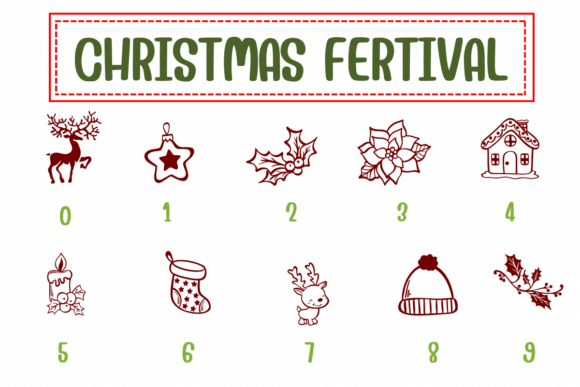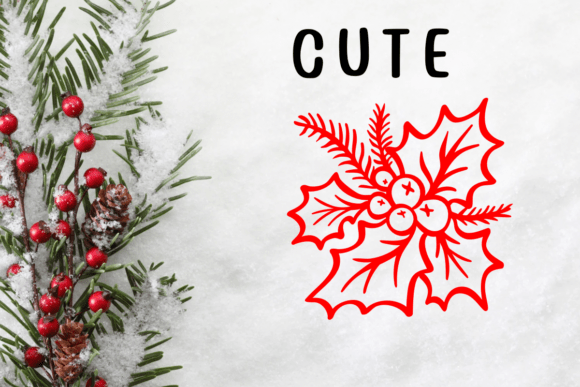
Christmas Festival Font
Christmas Festival is a dingbats font with a festive theme. This font can enhance your creative projects, such as Christmas cards, DIY crafts, decorations, logos, and many other unique ideas.